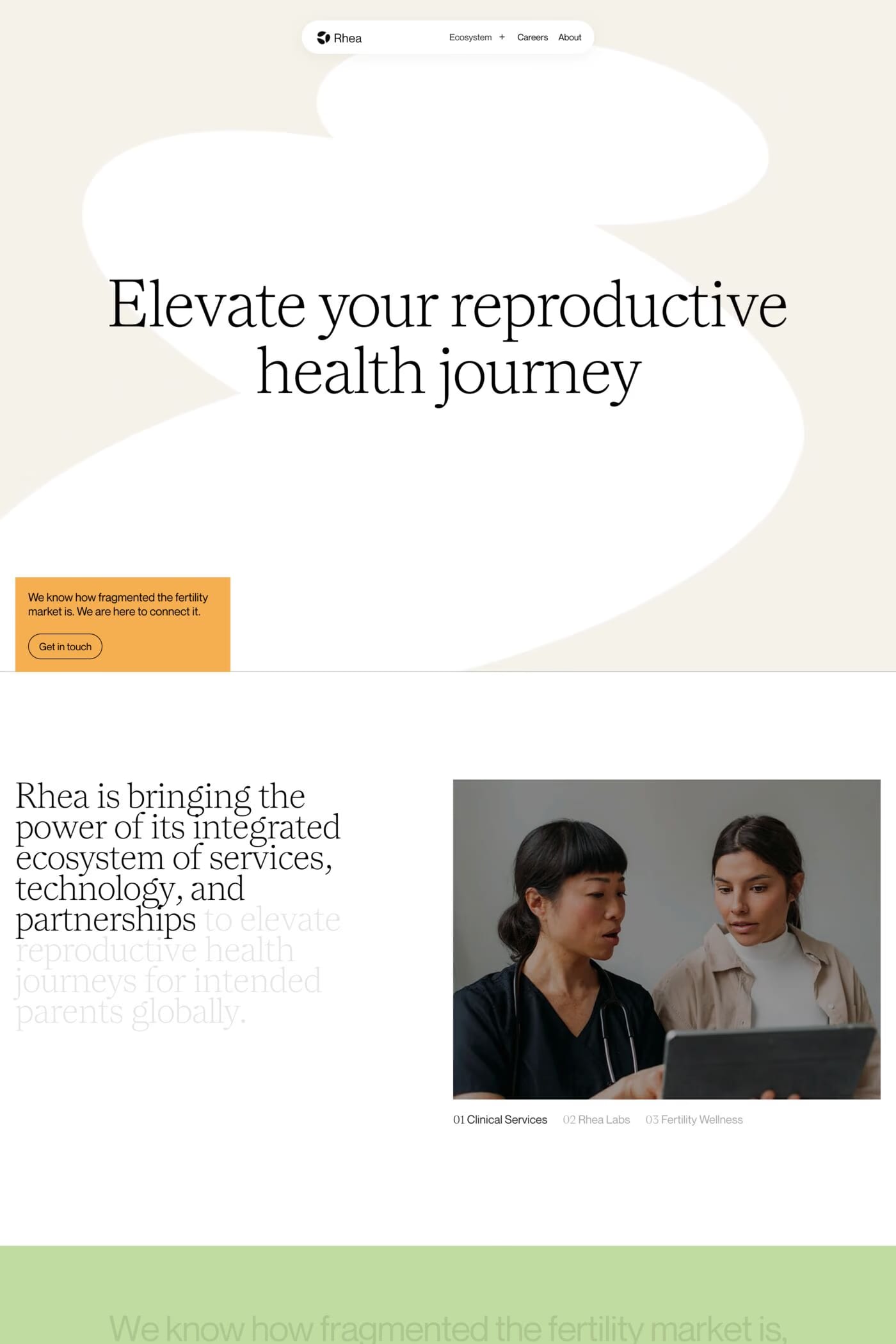
Nantes is a serif typeface from Luzi Type.
Discover Nantes, a serif typeface that blends rich graphic character with solid functionality, making it perfect for a variety of design applications.